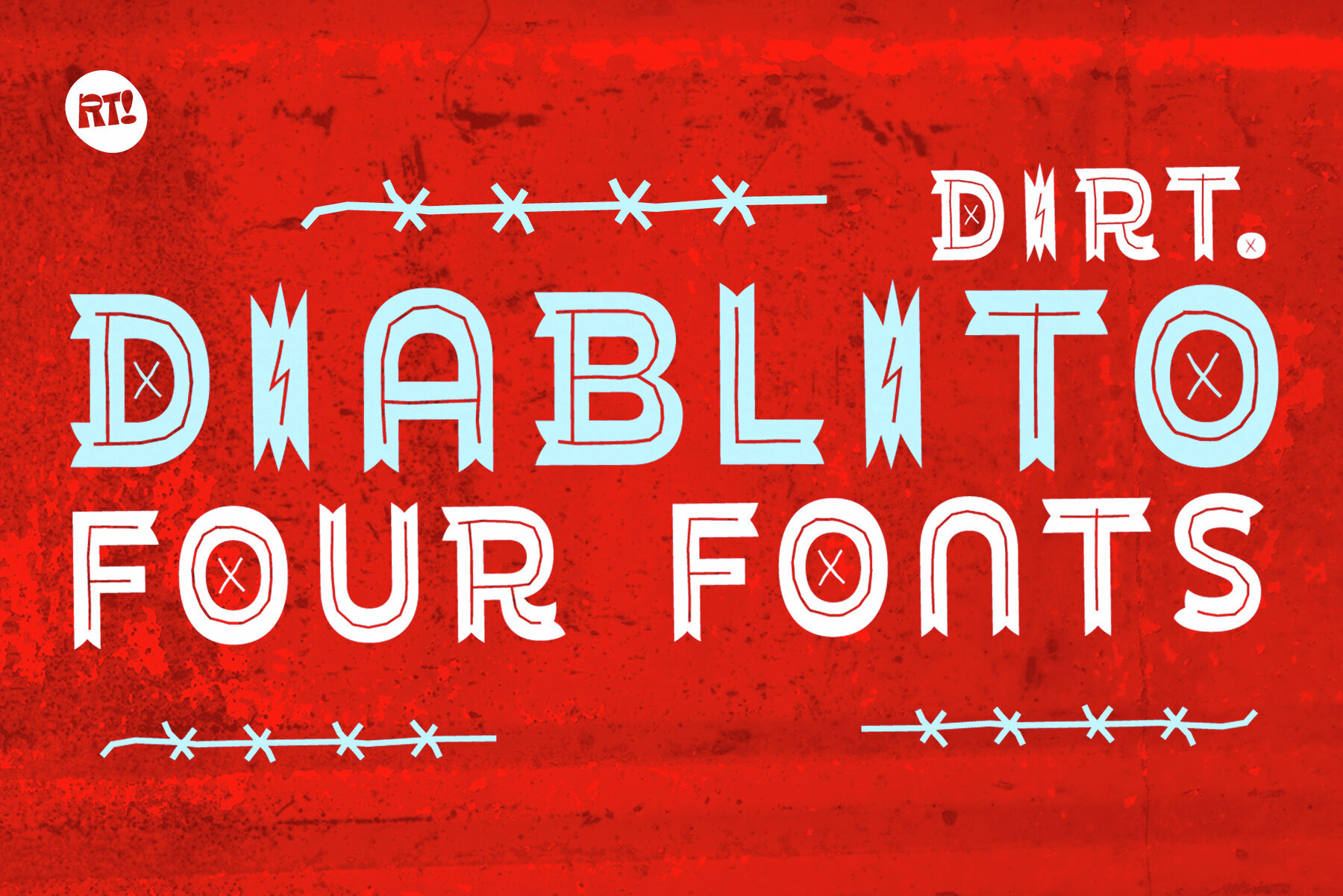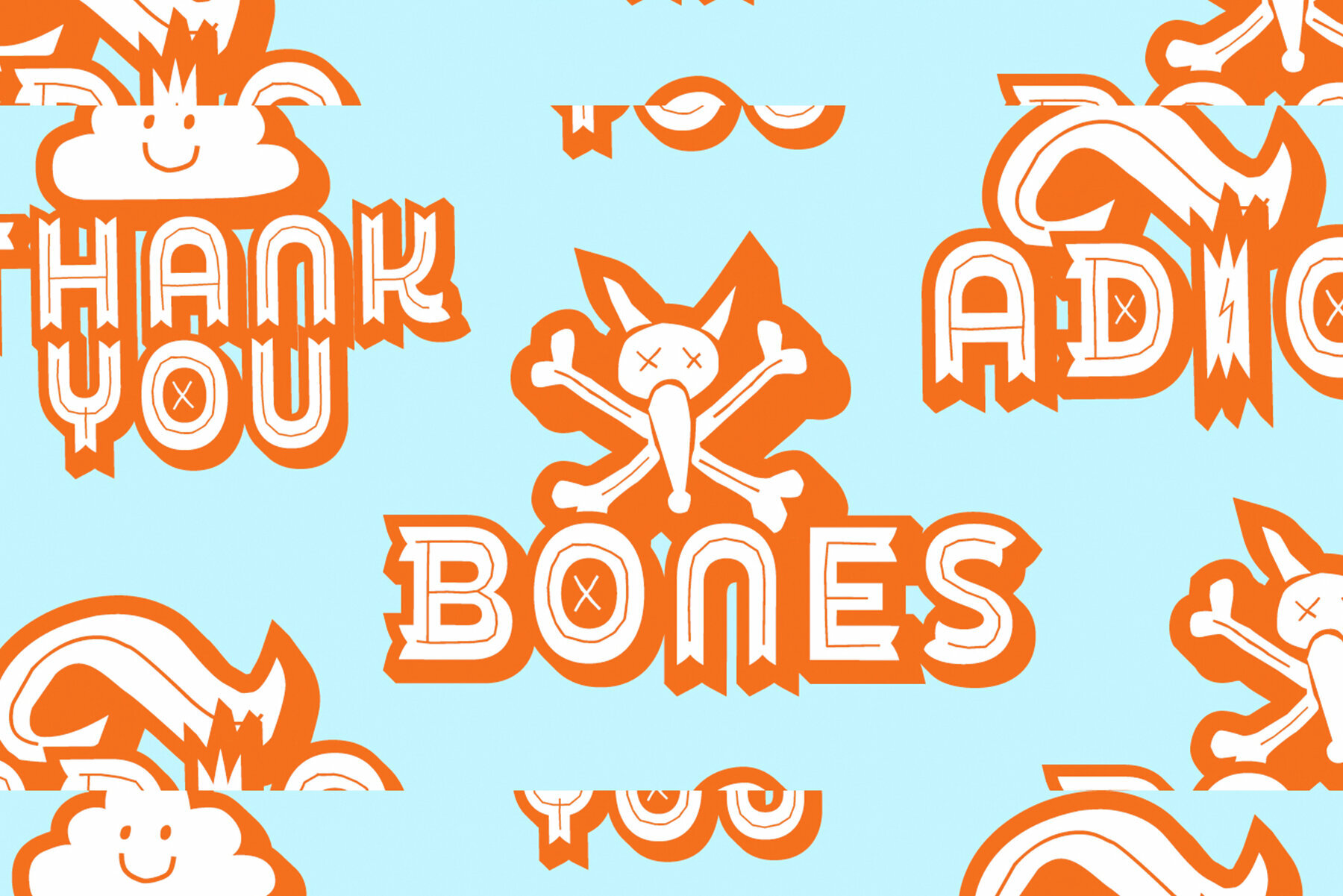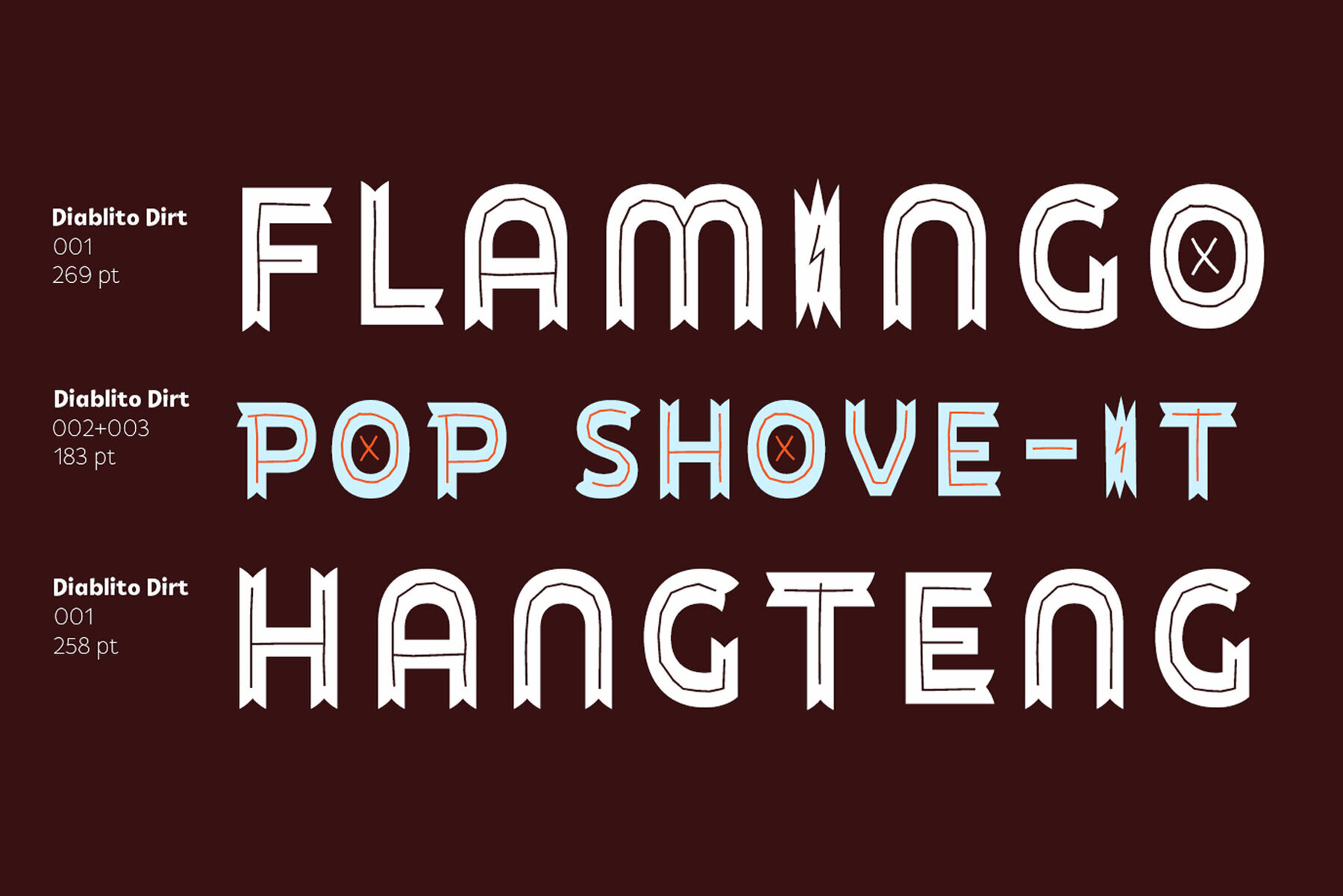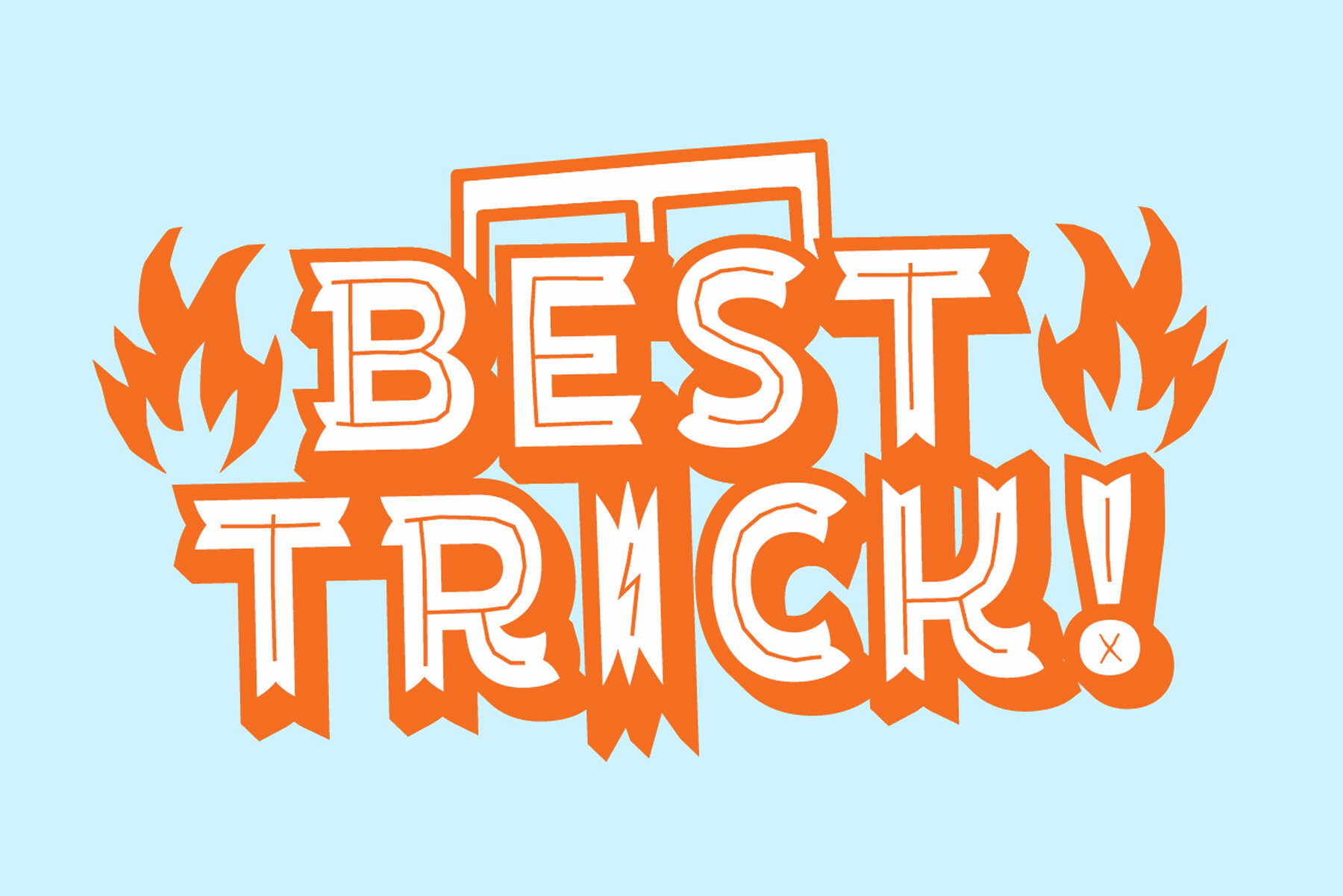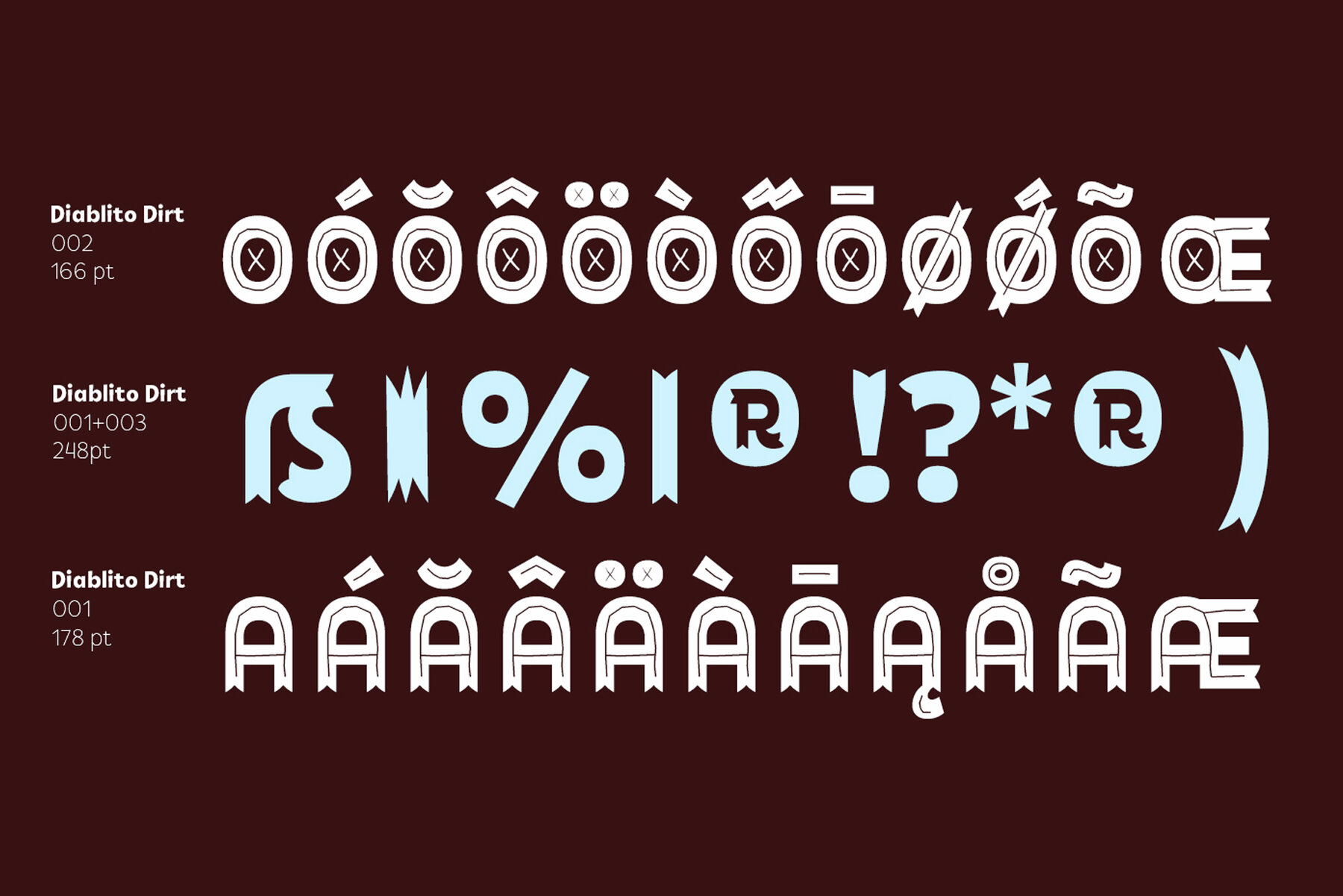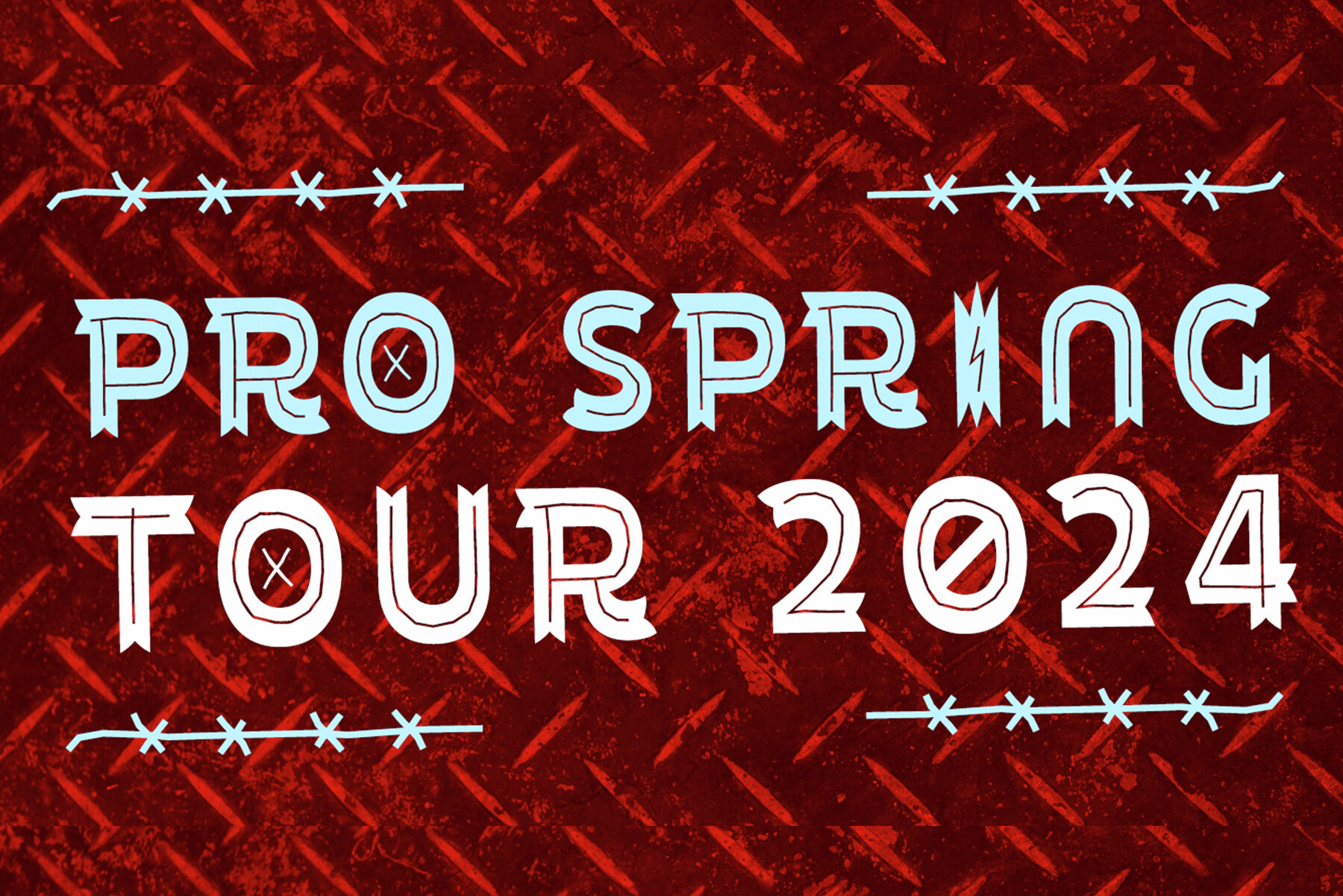
Diablito Dirt Font
Diablito Dirt is a striking display font designed by RodrigoTypo, capturing attention with its bold and unique character. Perfect for creating impactful headlines and eye-catching designs, Diablito Dirt offers a distinct aesthetic that enhances any project.Diablito Dirt: A Bold Display Font by RodrigoTypo